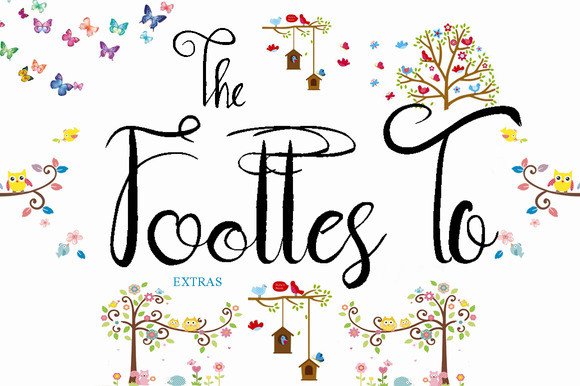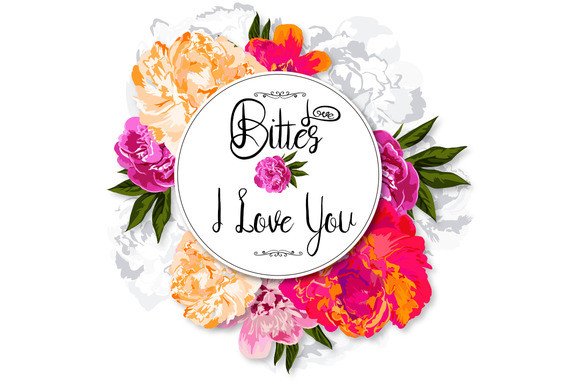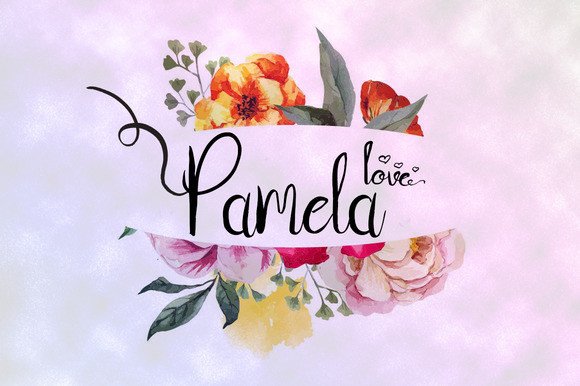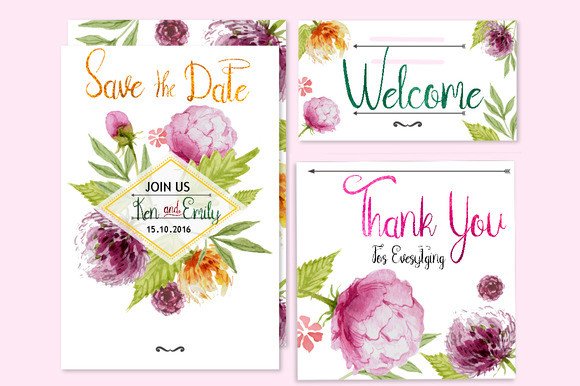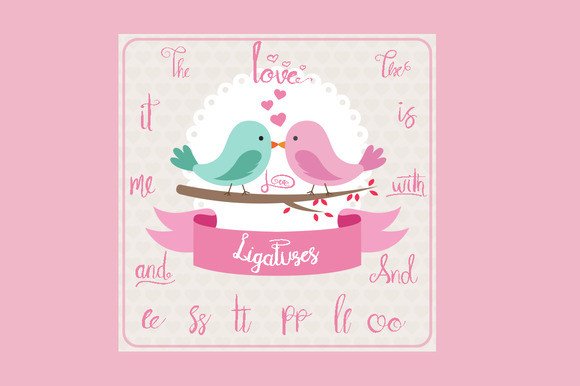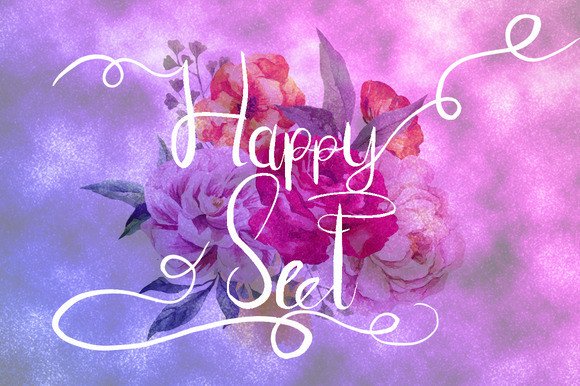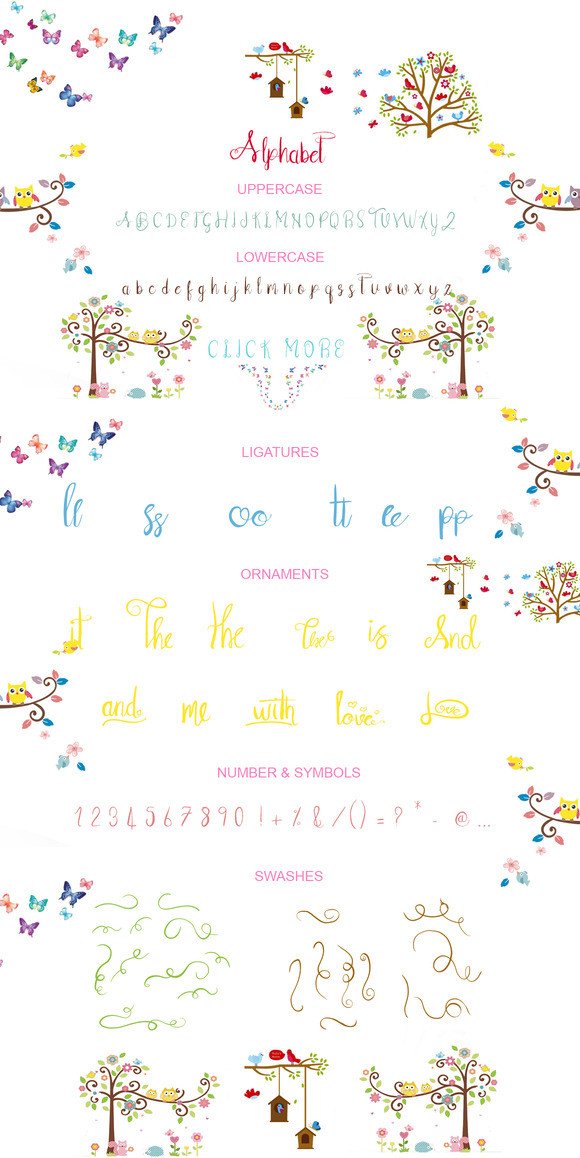
The Foottes to Font
The Foottes To is a beautiful typeface with a lot of elegant swashes. Can be used for various purposes such as posters, t-shirts, letterheads, logos, labels, invitations, cards, and much more.